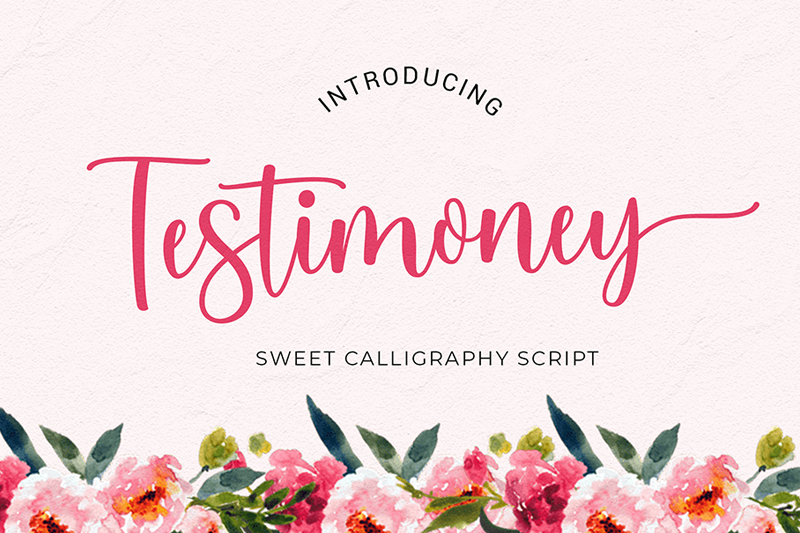
Testimoney is a modern calligraphy script font. It has an handmade style modern calligraphy look making it perfect for quotes and digital designs. Perfect use on social media, instagram, logos, websites, blogs, home decor, wedding decor, invitations, branding, business cards, and many more! --- By downloading, installing or using this font, you are agreeing to the Product Usage Agreements: 1. THIS FONT ONLY AVAILABLE FOR PERSONAL USE. 2. FREE FONTS NOT ALLOWD FOR COMMERCIAL USE! 3. You require a license for any PROMOTIONAL or COMMERCIAL use. 4. Please Download Full Version here: https://crmrkt.com/GlEBV7 or here https://creativemarket.com/Siwox?u=Siwox EMAIL SUPPORT: sarwok3@gmail.com@gmail.com *This free font is only available on Dafont. If there are other sites that provide this font for free, it's illegal. We don't allow it. Thanks for download! |